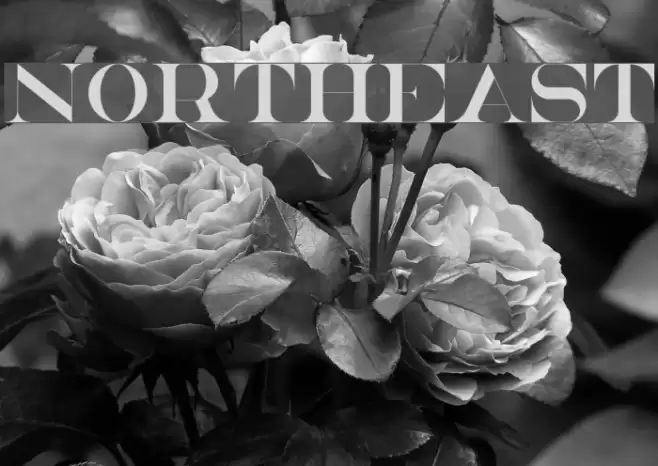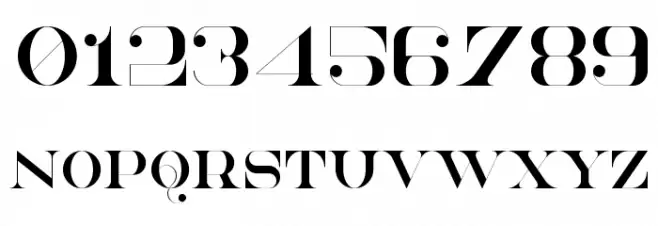
NorthEast Font
This font exhibits a striking and bold design with a high contrast between thick and thin strokes, creating a dramatic and elegant appearance. The characters are sharply defined with distinct serifs that add a touch of sophistication. The uppercase letters are particularly eye-catching, featuring unique cuts and curves that enhance their visual appeal. The numerals are equally stylish, maintaining the same high contrast and sharp edges. This font is well-suited for making a strong visual impact, with its bold presence and artistic flair.
A bold, high-contrast serif font with sharp edges and elegant curves from Uncategorized fonts.
- Proposed Projects: Ideal for luxury branding, editorial headlines, fashion magazines, and sophisticated logo designs.